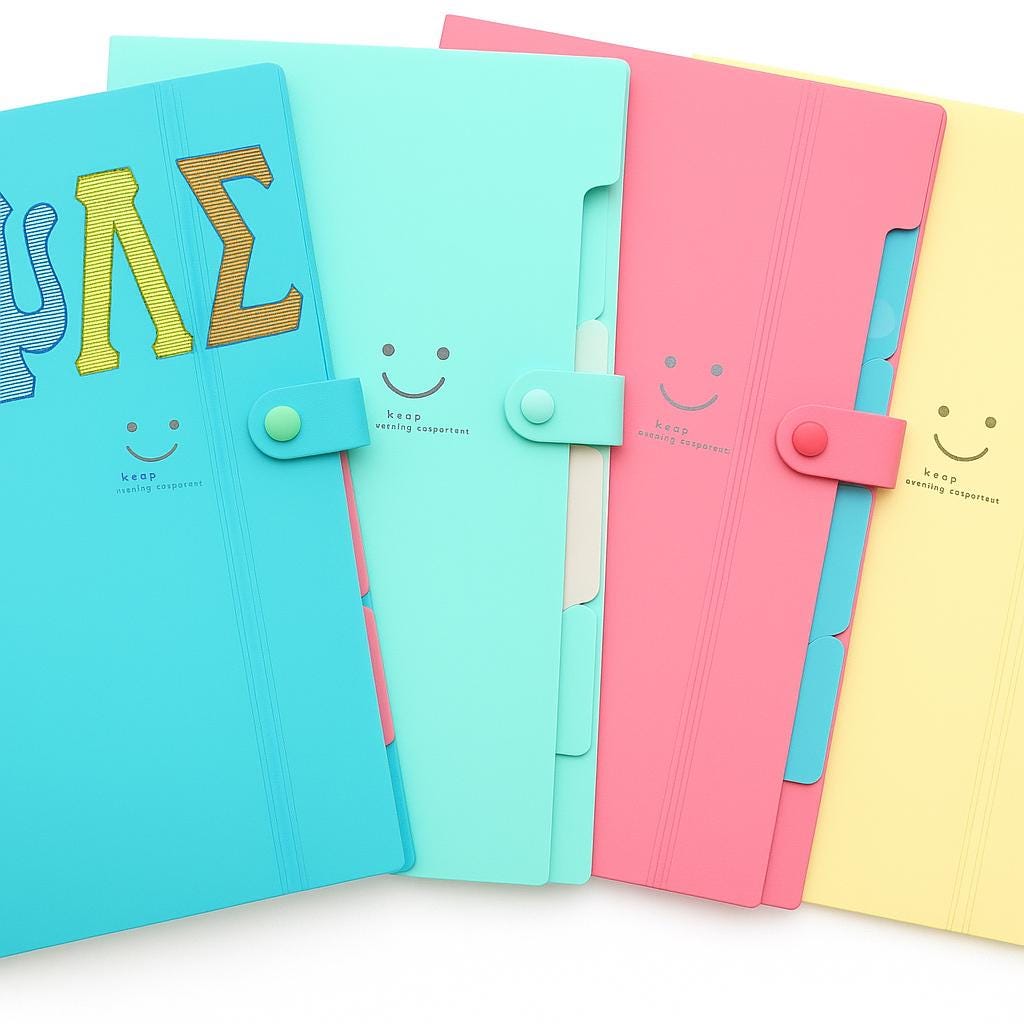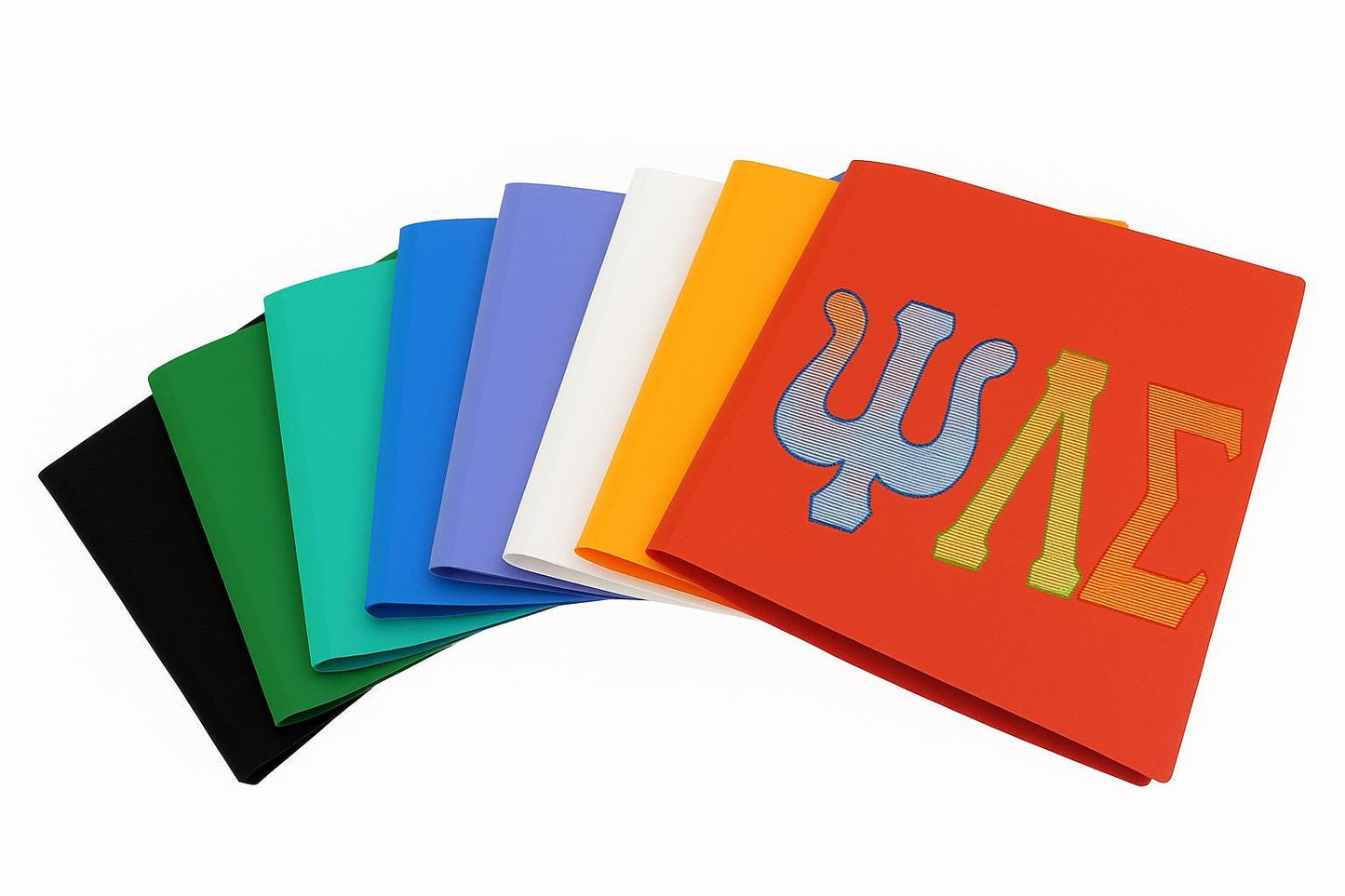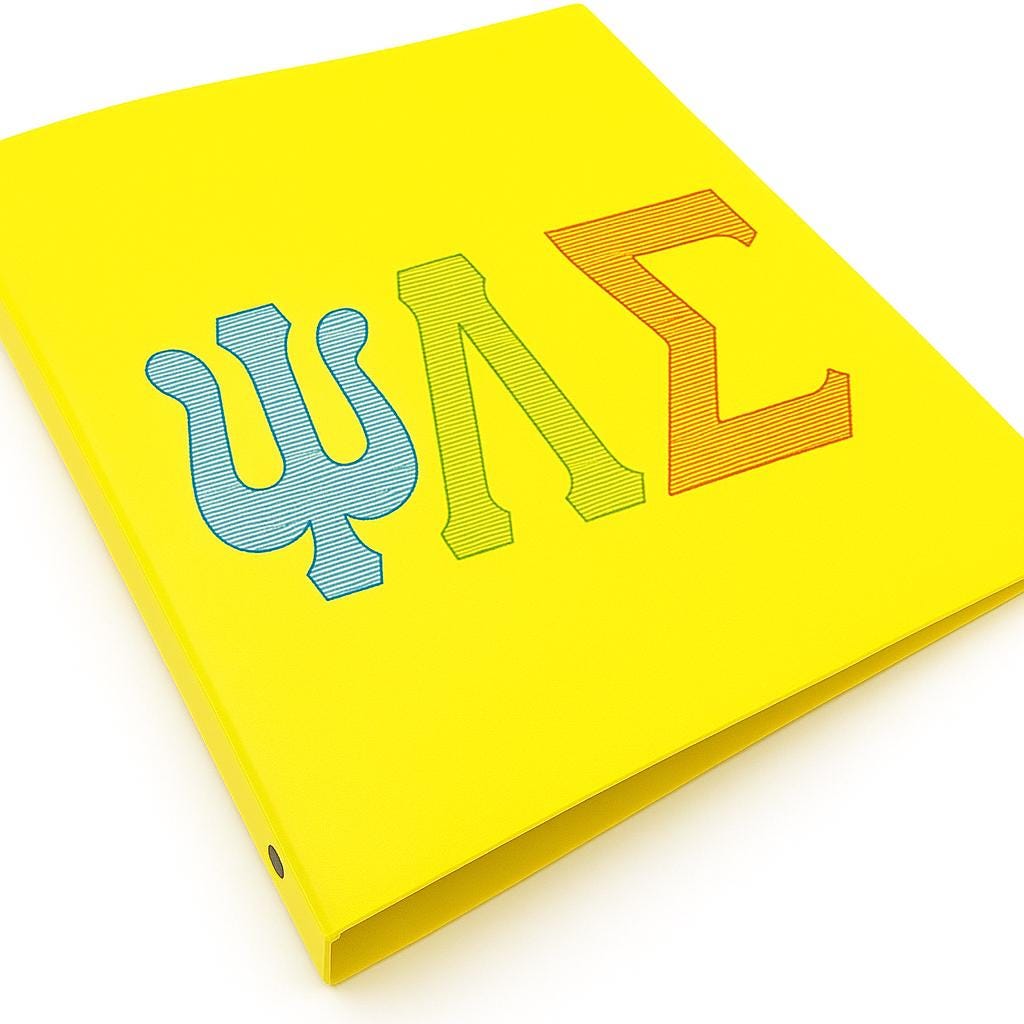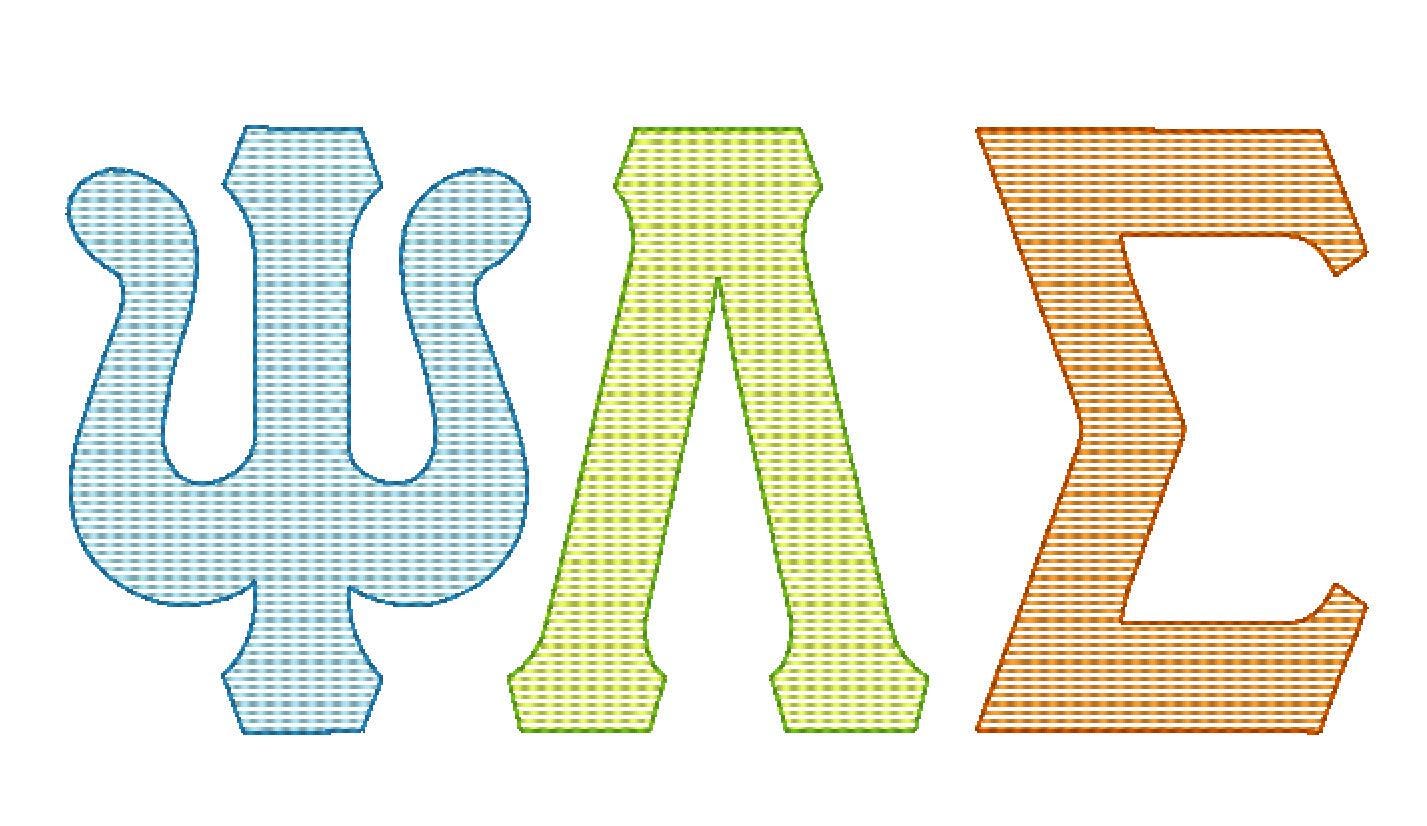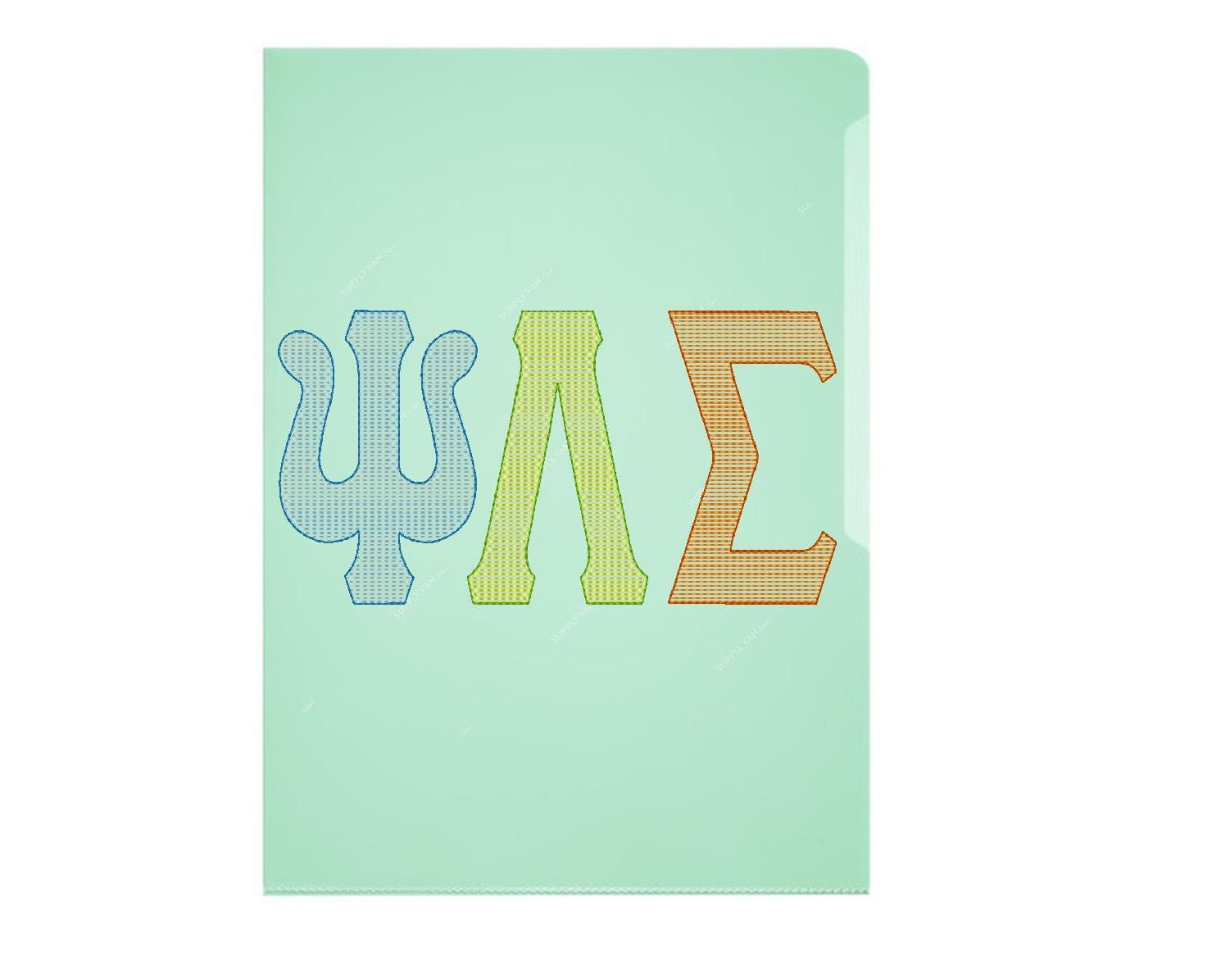
Light Stitch Tall Greek Font Alphabet
Or click to open the linkTall Greek letters in quick, light outline stitching. Easy for sorority and fraternity shirts, bags and gifts.
All 24 Greek letters in a light quick-stitch outline, in five sizes: 2.5, 3, 3.5, 4 and 4.5 inches.
- 24 tall Greek letters, light stitch
- 5 sizes, 2.5 to 4.5 in